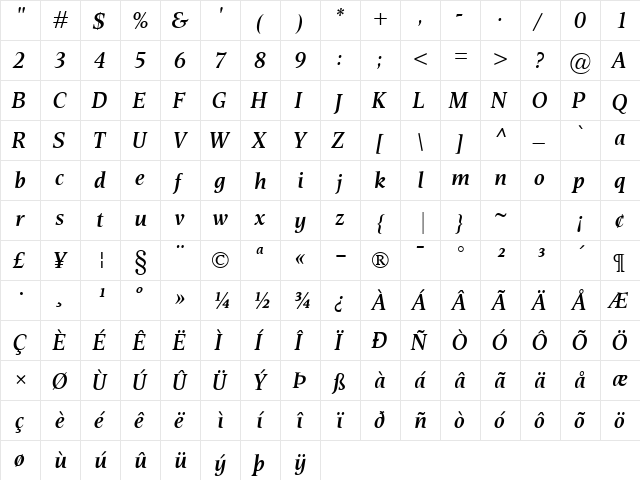
Esperanto SemiBold Italic
Design Context for Esperanto SemiBold Typeface
Esperanto SemiBold is a composed and adaptable typeface that performs quietly and consistently across a wide range of design contexts. The dynamic lean of this cut emphasises speed and emphasis in any layout. Its bold stroke weight gives it real presence on the page.
Pro Tip: Use Esperanto SemiBold for emphasis, pull quotes, and subheadings where its slanted energy can add rhythm to the layout.